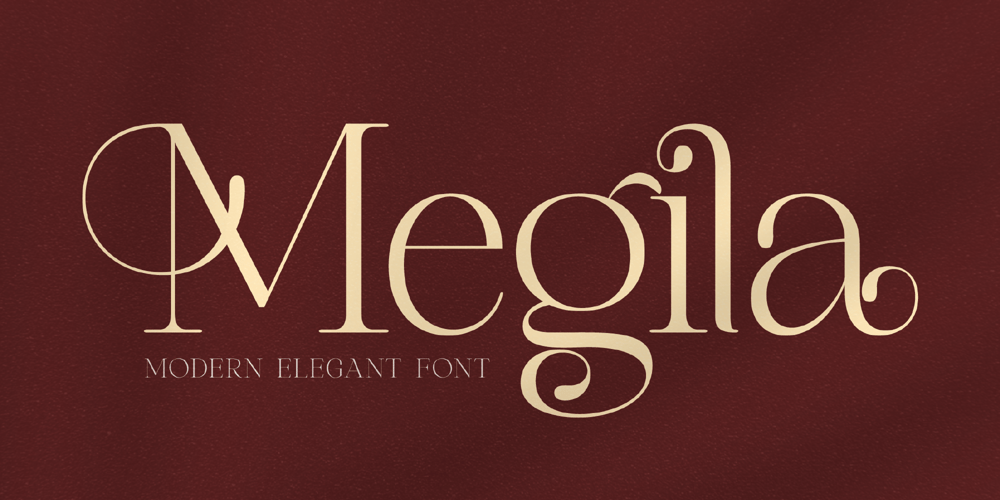
Megila
Megila font
Megila Font Family was designed by Heru Utama Putra and published by Letterena Studios. Megila contains 2 styles and family package options. Megila is a modern and classy serif font with a unique style and modern look. This typeface is perfect for an elegant & luxury logo, book or movie title design, fashion brand, magazine, clothes, lettering, quotes, and so much more.